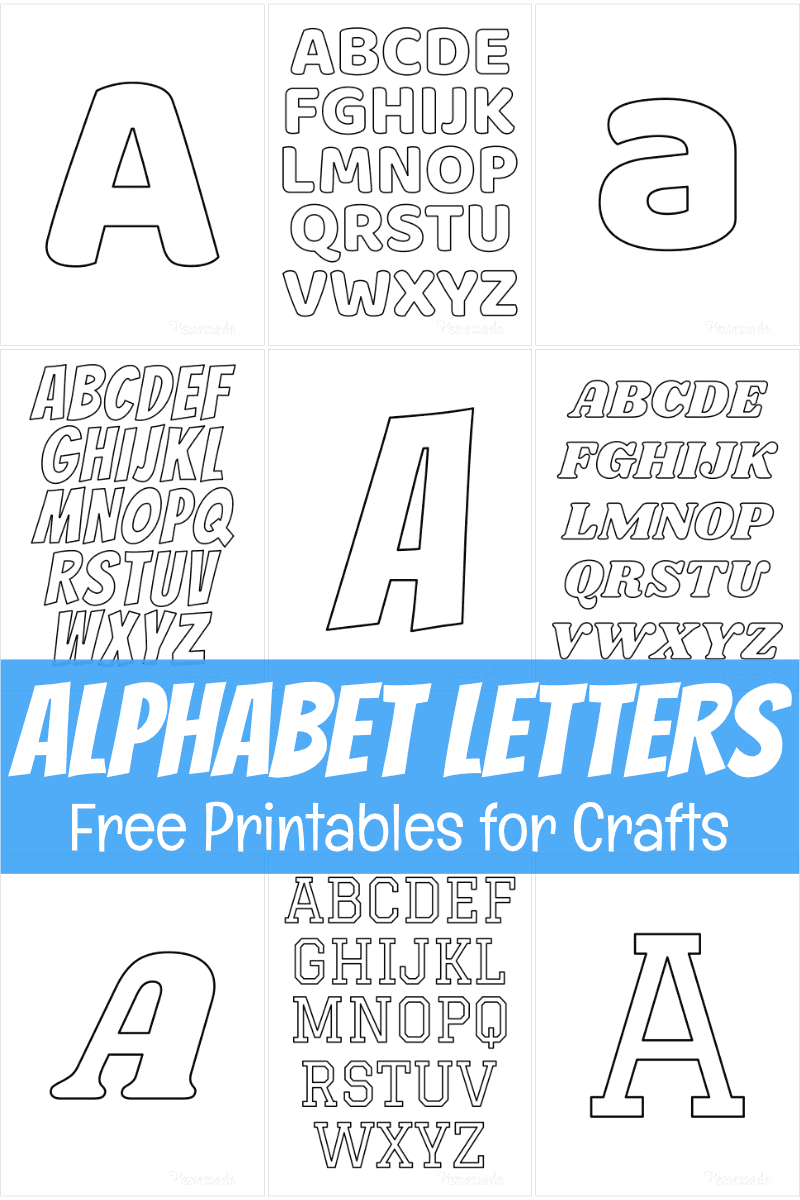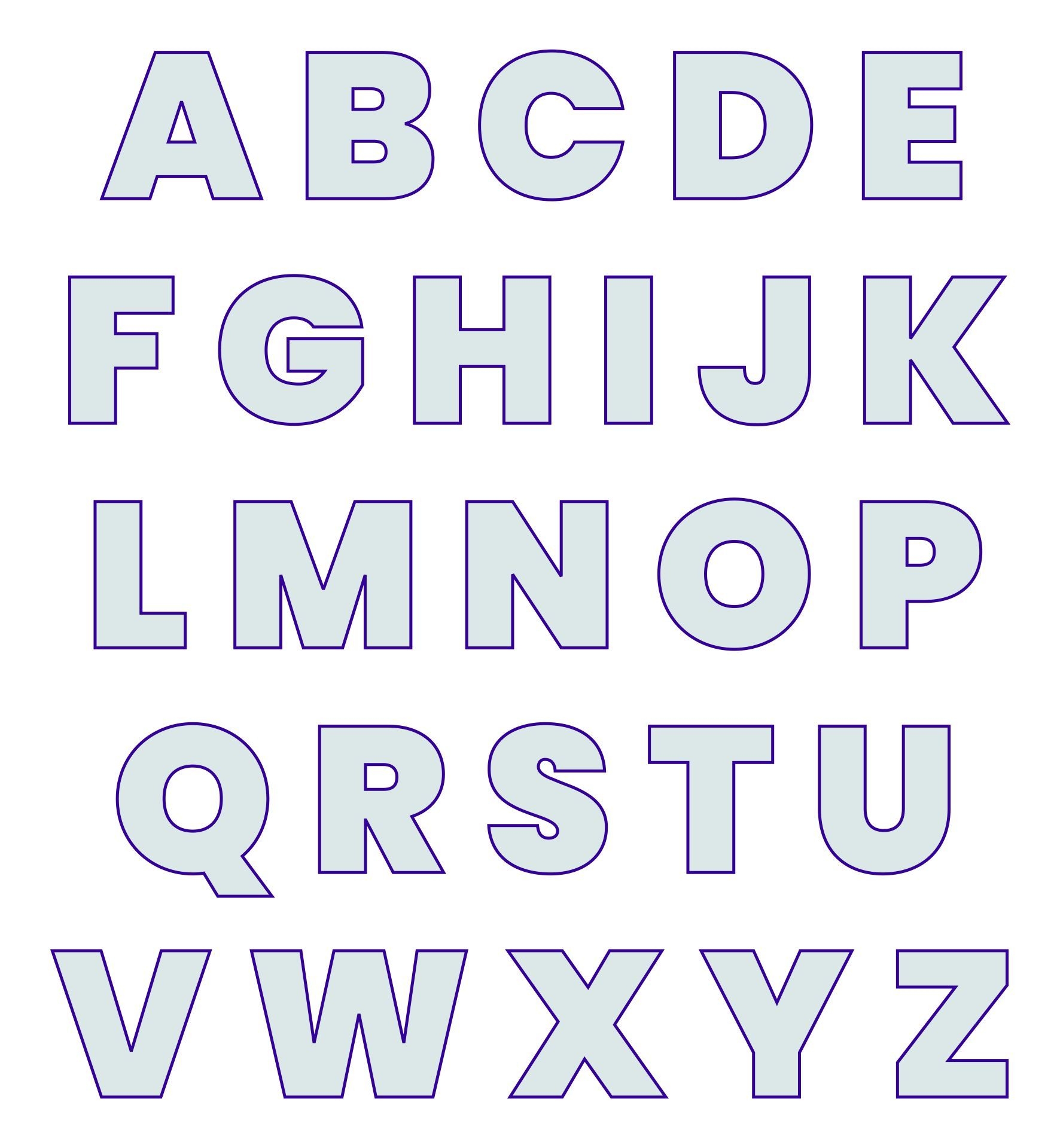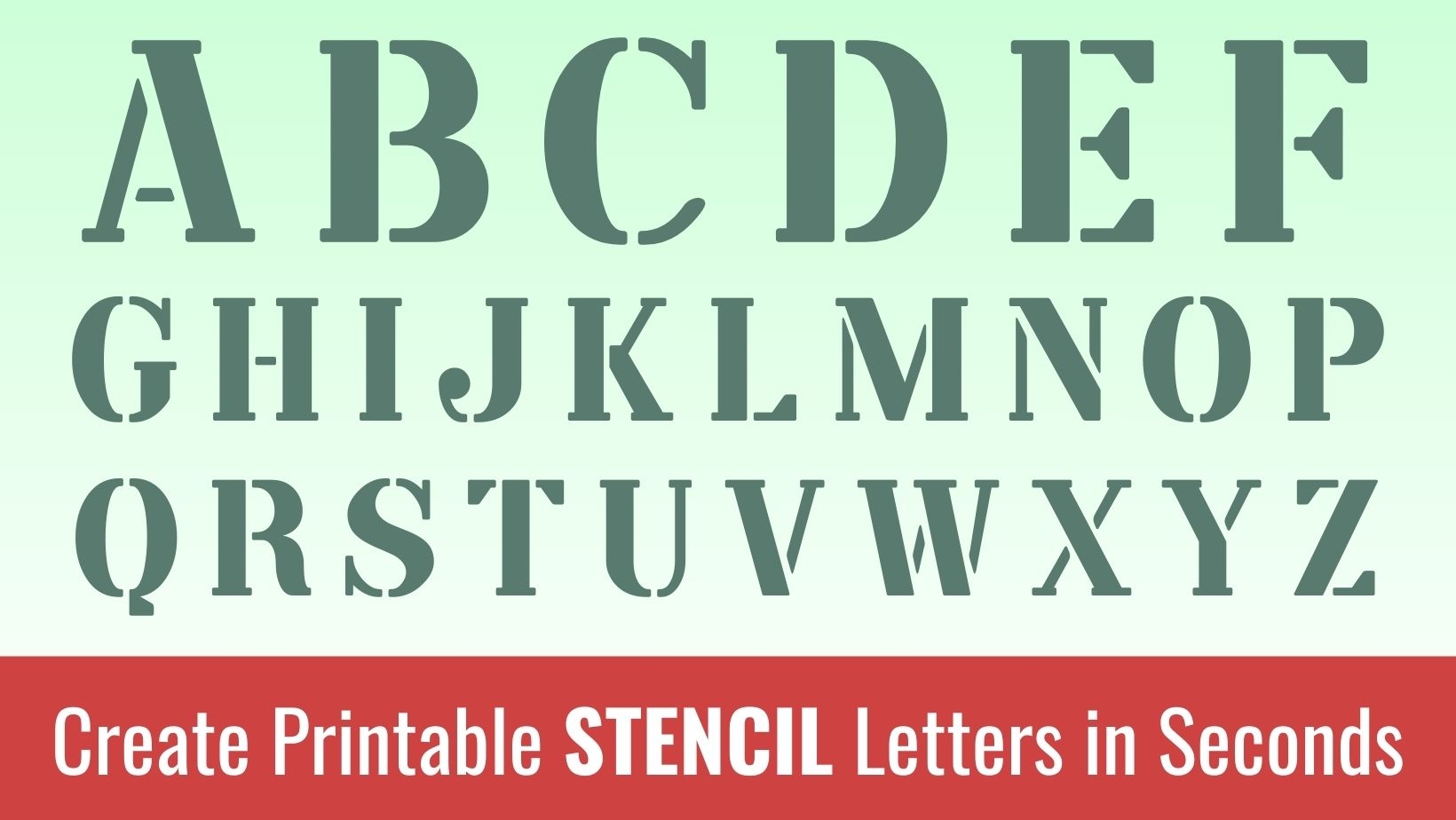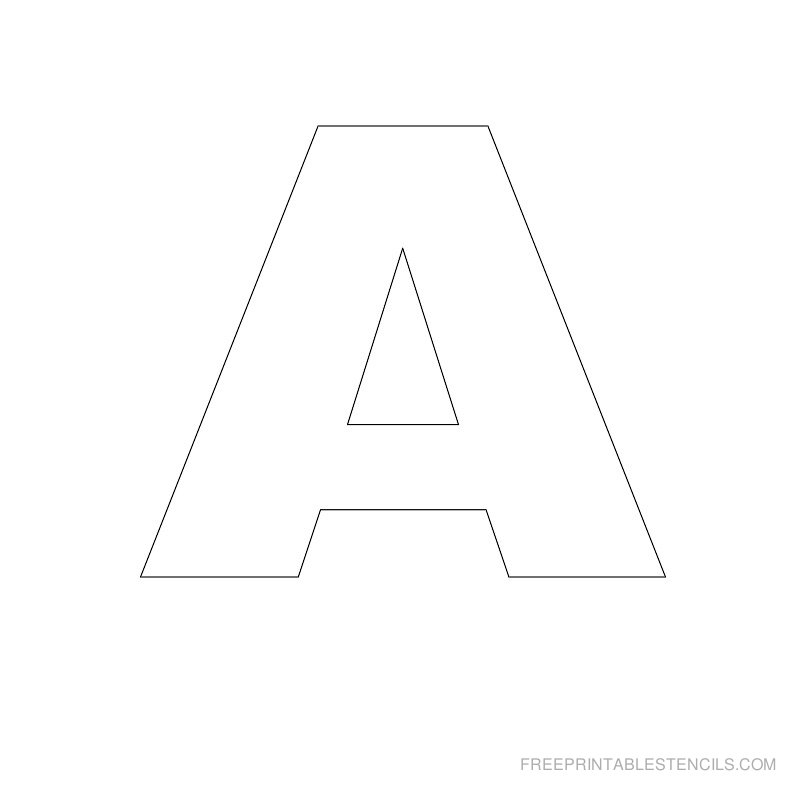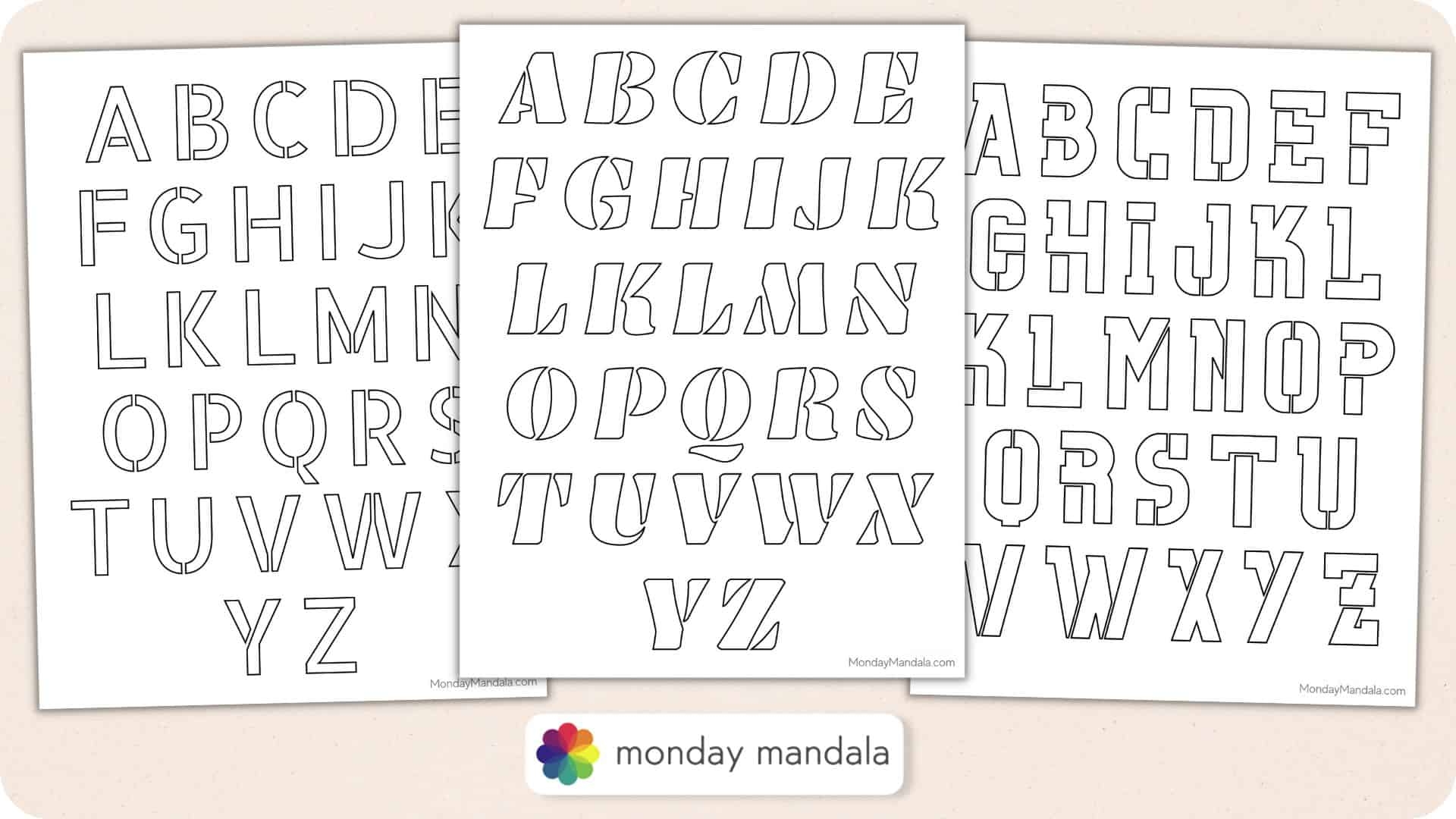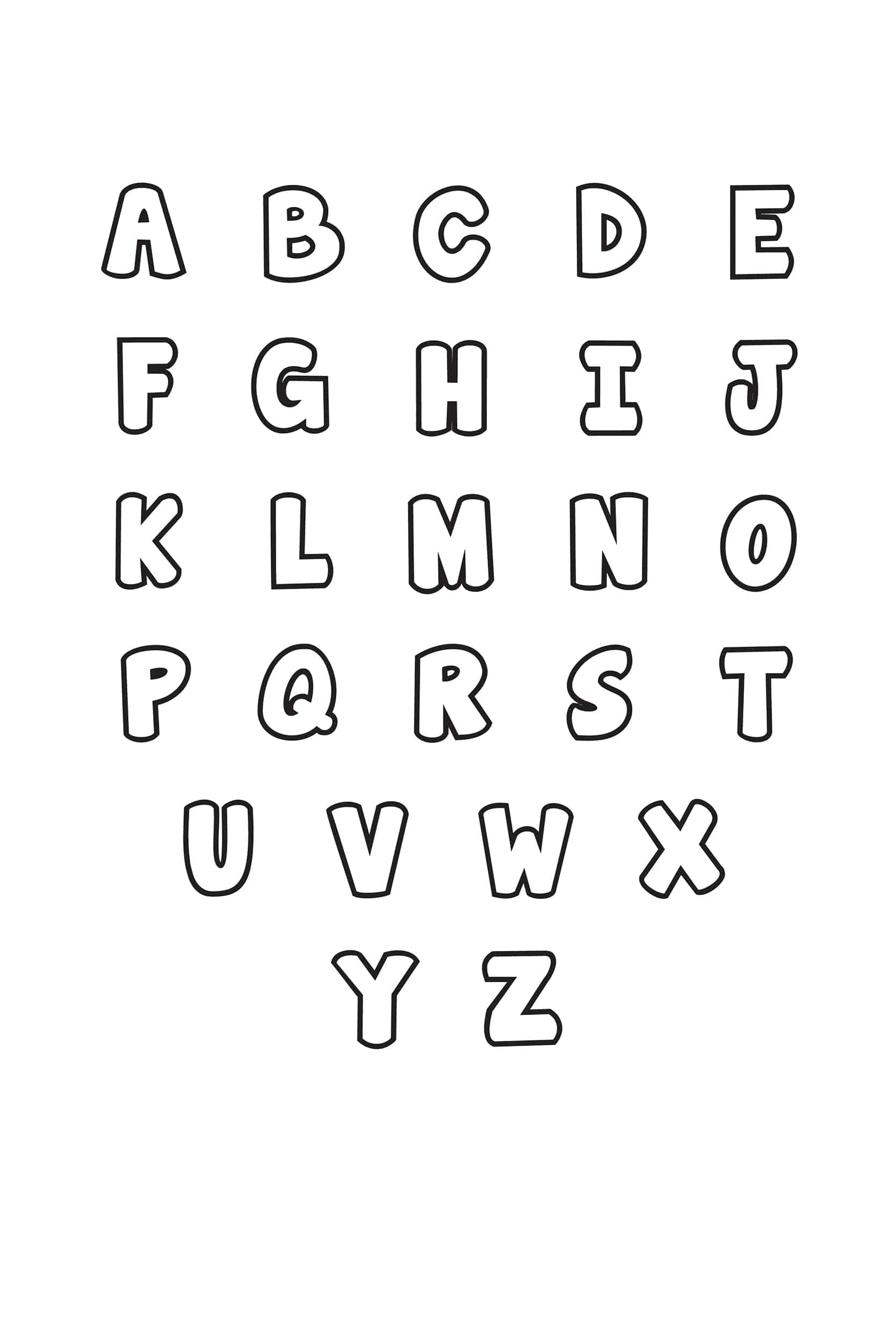
Are you looking for free printable fonts for stencils to add a personal touch to your DIY projects? Look no further! Finding the perfect font can make all the difference in your creative endeavors.
With a variety of styles and sizes to choose from, free printable fonts for stencils can help you achieve the look you desire for signs, posters, and more. Whether you prefer a classic, modern, or whimsical font, there’s something for everyone.
When selecting a font for your stencil project, consider the readability and impact of the design. Bold, simple fonts work well for larger projects, while intricate, decorative fonts can add flair to smaller items. Experiment with different options to see what works best for you.
Many websites offer free printable fonts for stencils in a range of styles, making it easy to find the perfect match for your project. From elegant script fonts to playful block letters, there’s no shortage of options to explore.
Remember to test your chosen font on a small scale before committing to a larger project to ensure it meets your expectations. With a little creativity and the right font, you can elevate your DIY projects and make them truly unique.
So, next time you’re working on a craft or decorating project, consider using free printable fonts for stencils to add a personal touch. With so many options available, you’re sure to find the perfect font to bring your vision to life.